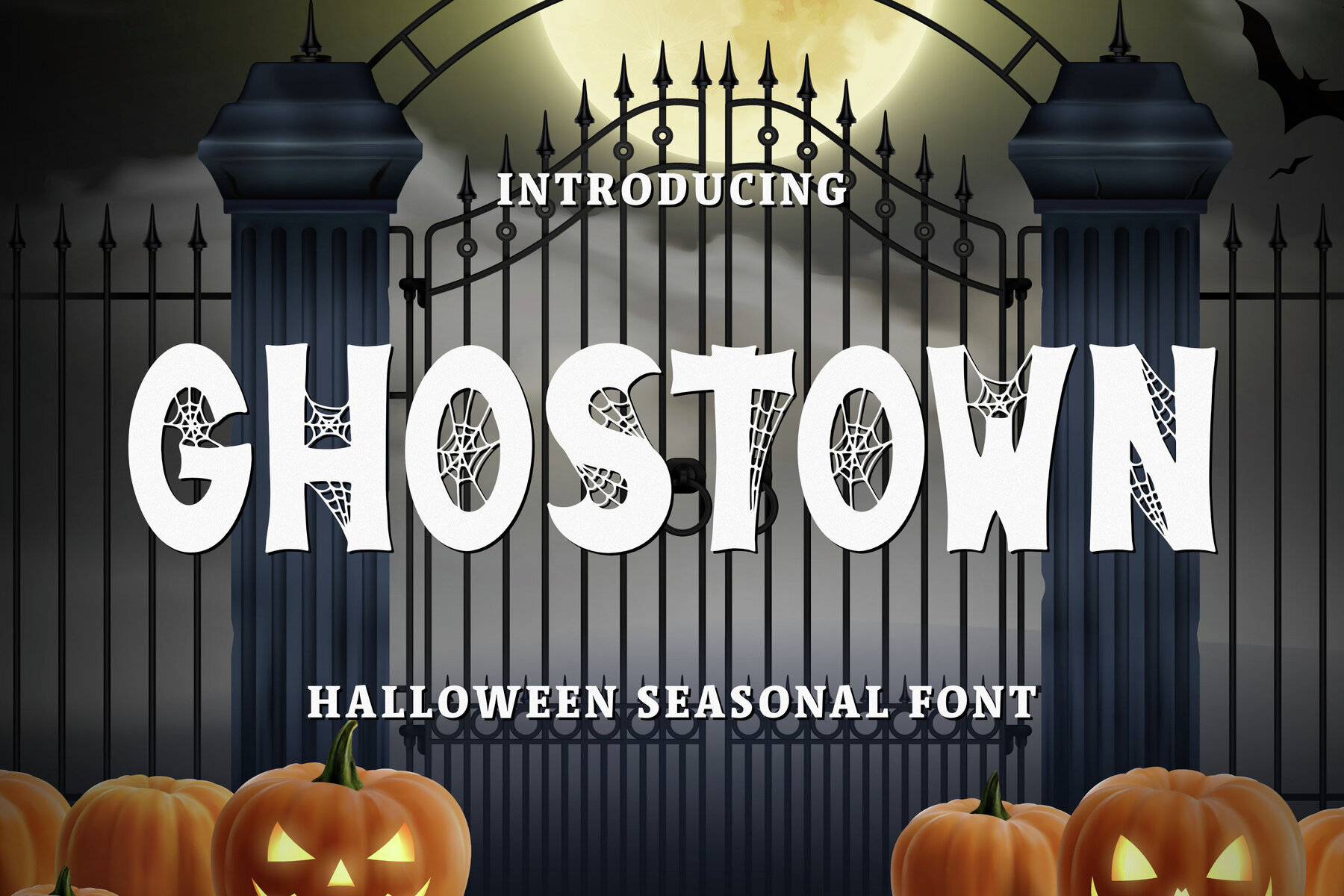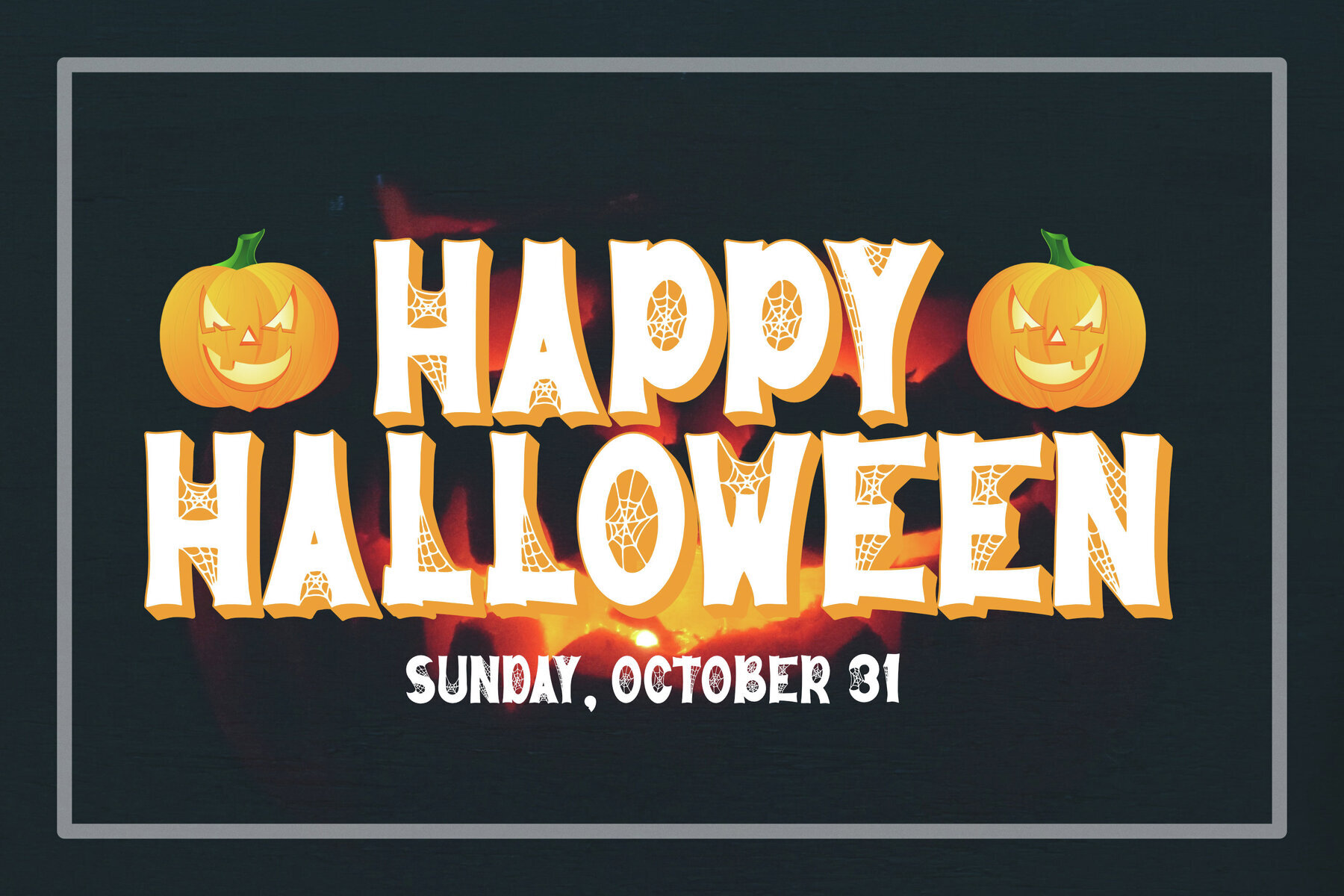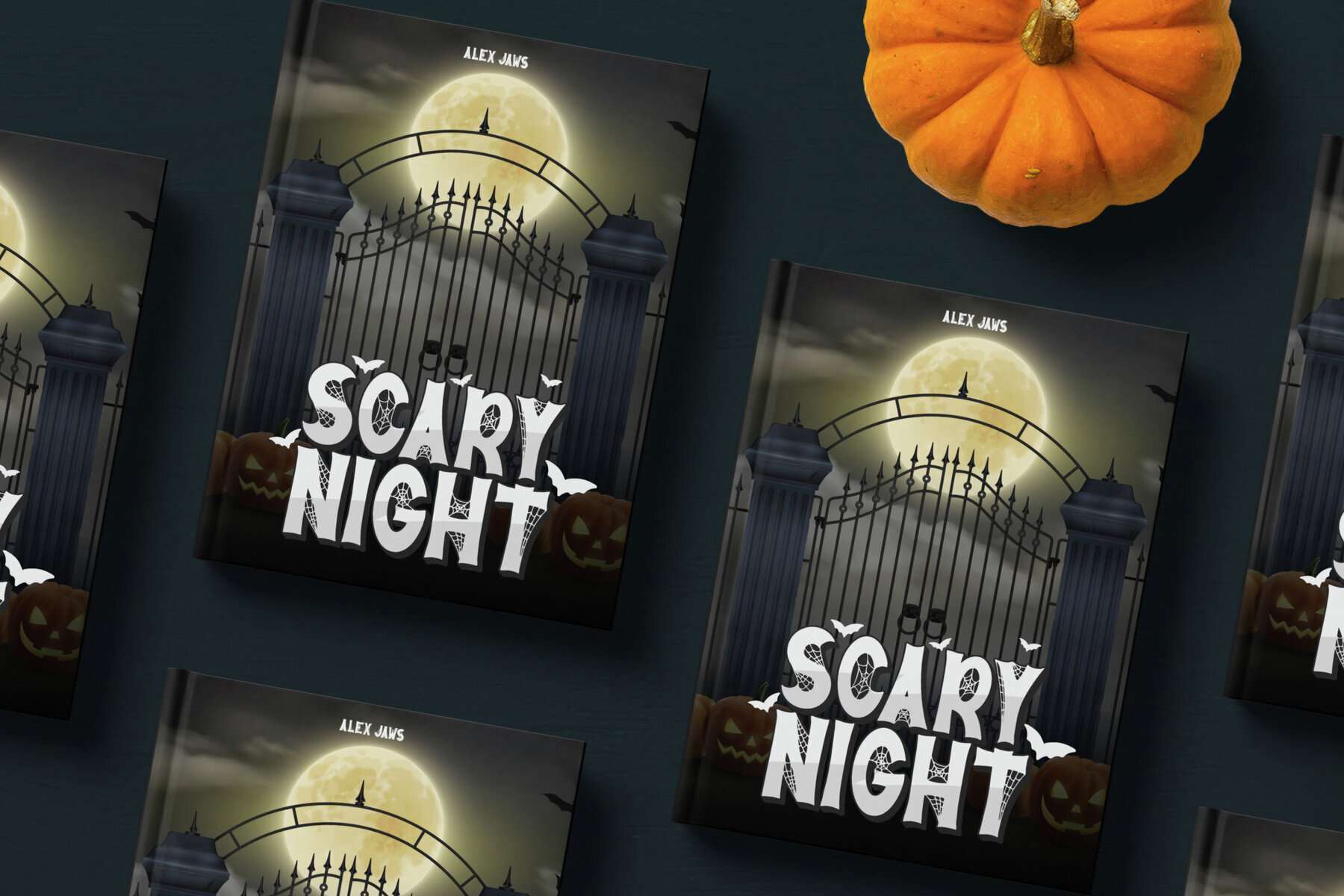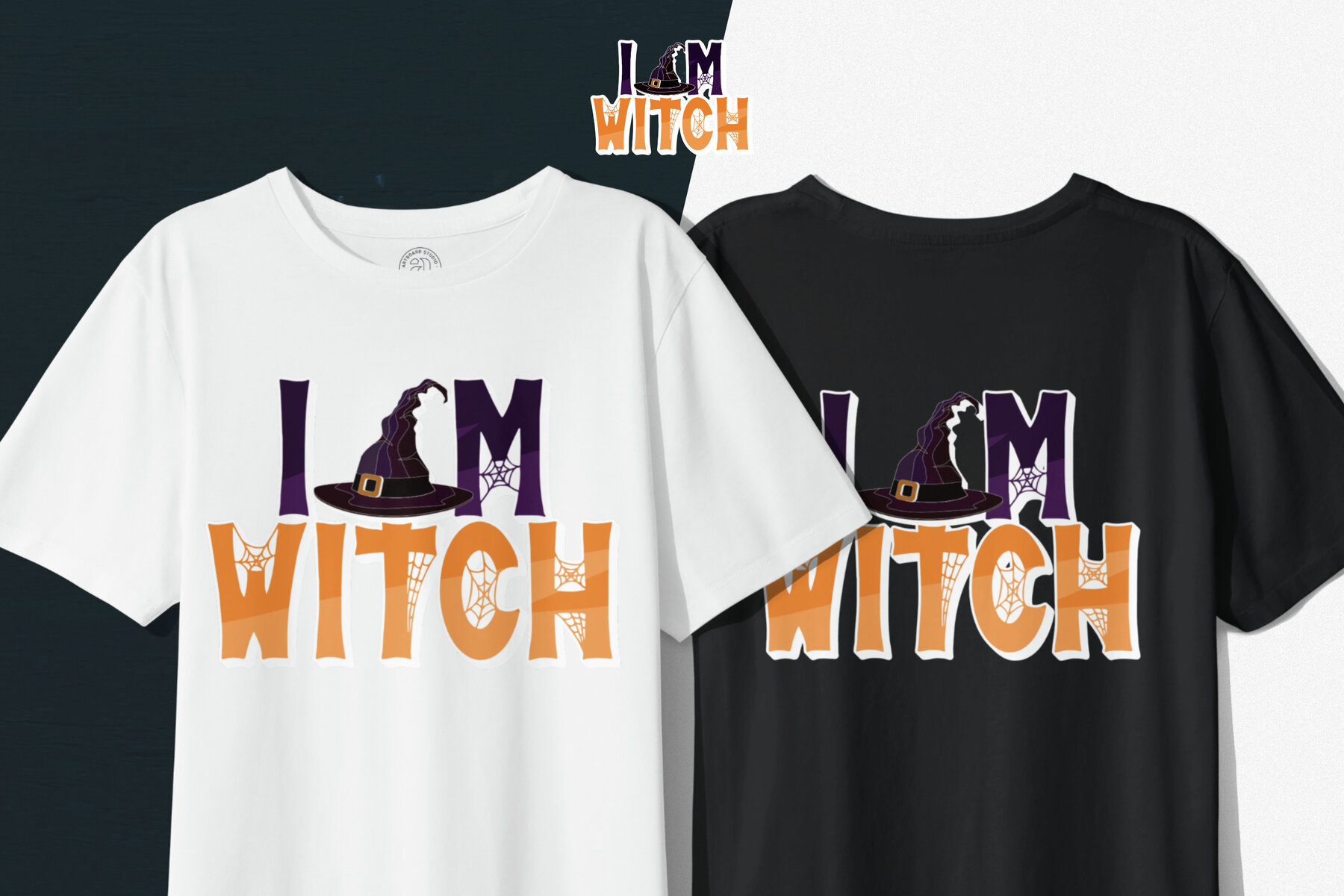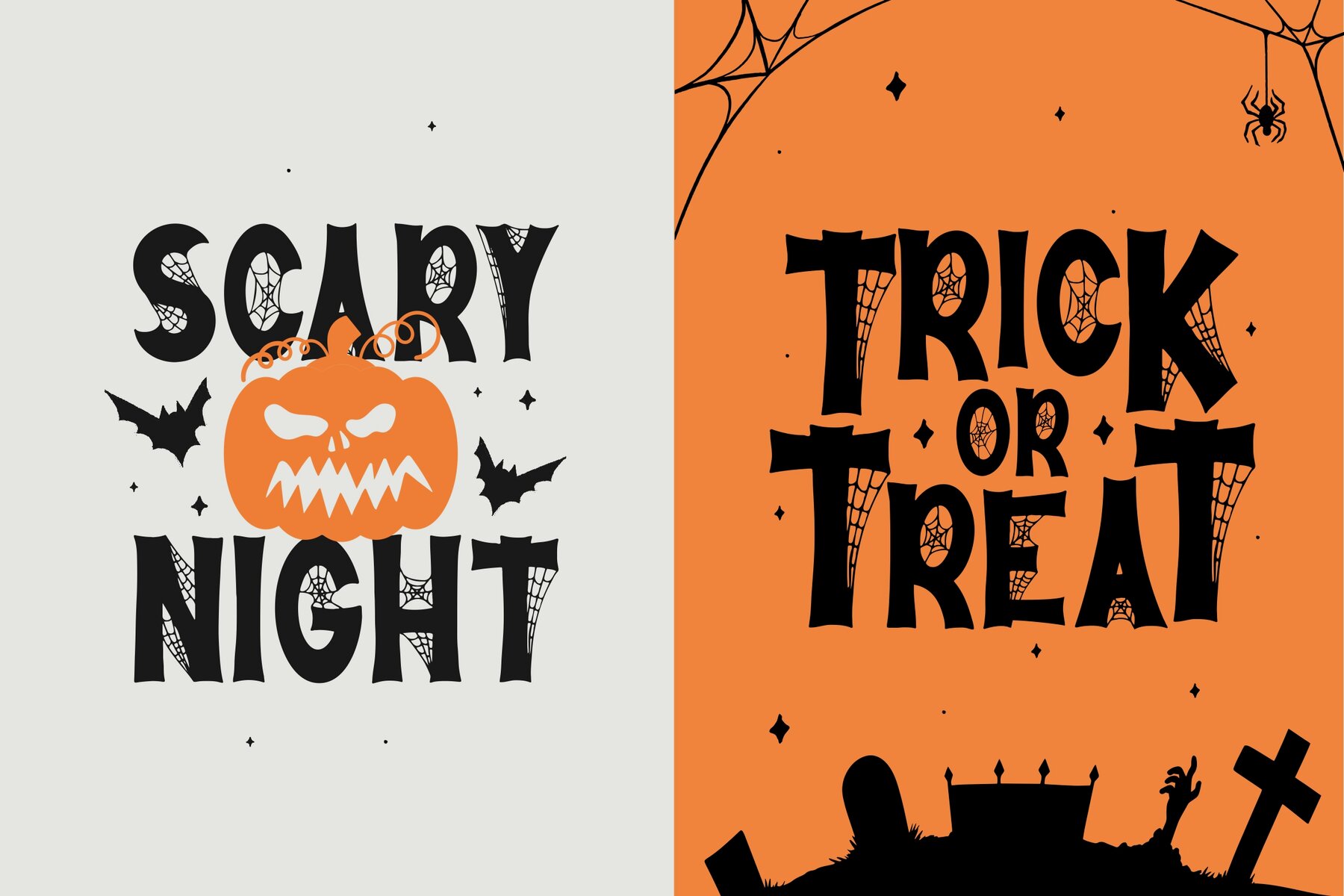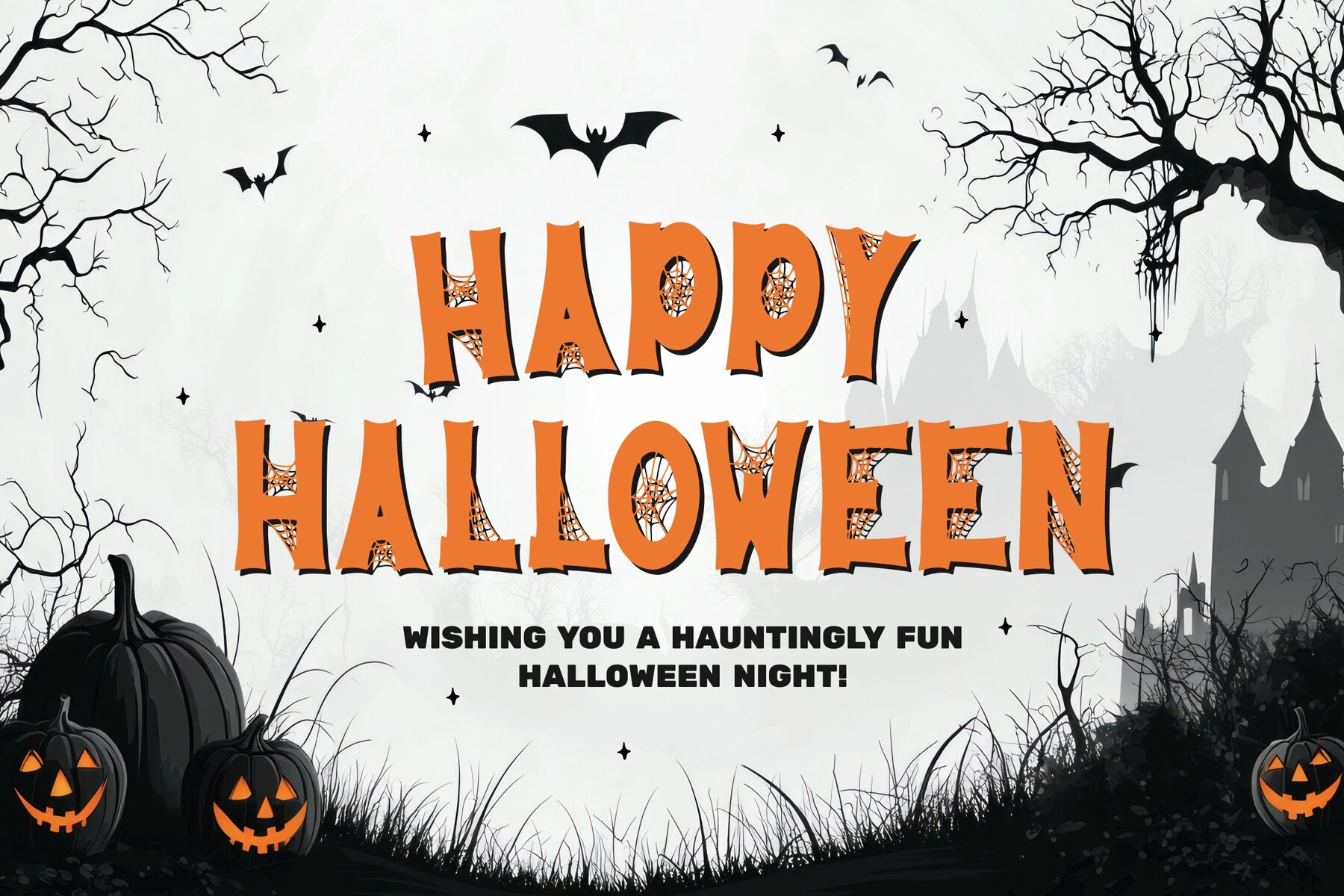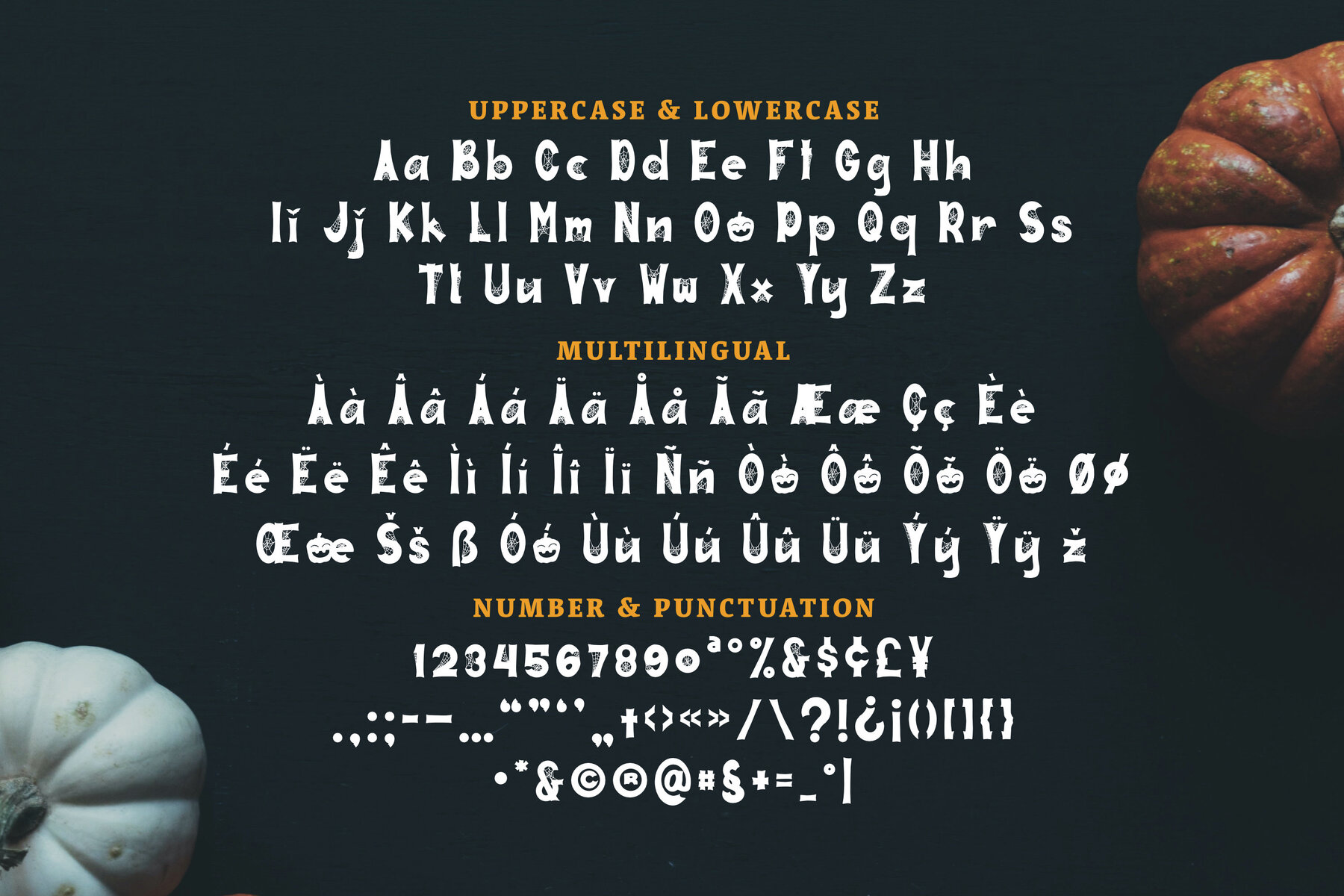
Ghostown Font
Ghostown Regular
Ghostown captures the spirit of Halloween with bold, dripping letterforms and hand-drawn details. Its quirky shapes and cobweb accents instantly add a chilling, playful vibe to your designs. This font is engineered for graphic impact, making it an excellent choice when your work needs to stand out during the spooky season. Designed to draw attention and evoke the haunted holiday mood, Ghostown fits any project requiring a touch of fun or fright. Its strong presence and playful details support creative headlines, event graphics, and festive marketing materials seeking a memorable, seasonal touch.Ghostown Halloween Display Font
Perfect for Seasonal Projects